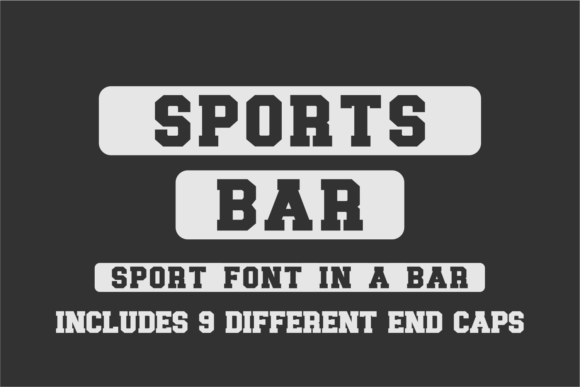
Are you looking for the perfect font for your sports team's logo or athletic-themed design? Look no further than Sports Bar Font, the latest addition to our display font family. Created by SVG Cuttables, this font is a dynamic and attractive option that will help your project stand out.
Sports Bar Font features bold letterforms and a sporty vibe that captures the essence of athleticism. Whether you're designing a sports poster or creating a team logo, this font is the perfect choice to convey energy, power, and excitement. It's no wonder why it's considered one of the best fonts for sports teams!
With Sports Bar Font, you can create captivating designs that will capture the attention of your audience. Its unique design and dynamic appearance will make your project stand out from the crowd. Your fans and customers will love the sporty feel that this font brings to your designs.
This font is easy to use and incredibly versatile. You can use it for any project that requires an energetic and athletic feel. Whether you're creating a website, designing a social media post, or crafting a team banner, Sports Bar Font is the perfect choice.